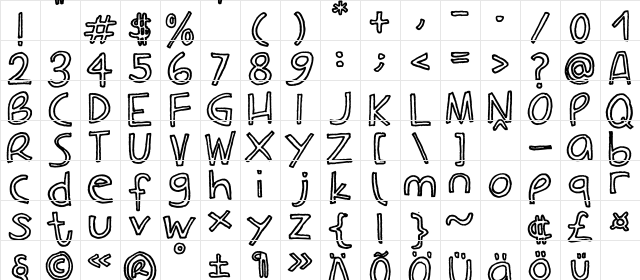
Carla_outline Regular
Design Context for Carla_outline Typeface
Carla_outline brings ornamental detail and strong personality to headlines and identities, where visual impact matters more than quiet functionality.
Font Pairing: Pair with a clean neutral sans-serif for body copy to let Carla_outline's character lead without overwhelming the composition.
Pro Tip: Use Carla_outline exclusively at display sizes — it was designed to be seen, not read at length. Let a neutral companion handle body copy.